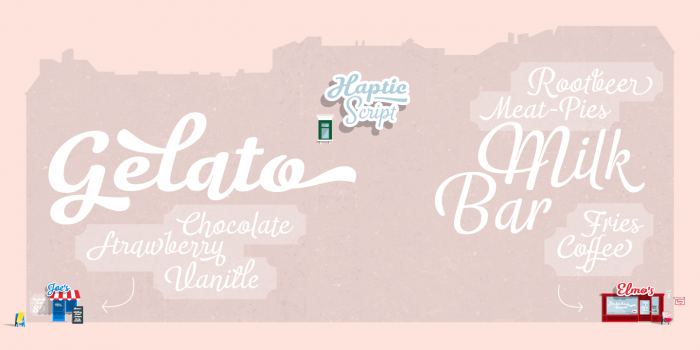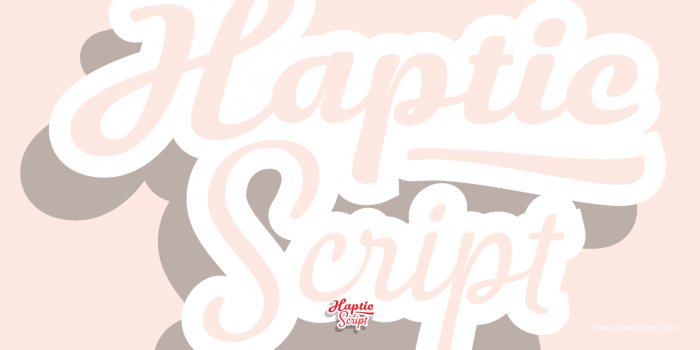
Neue Schriftfamilie: HapticScript
Neue Schriftfamilie: HapticScript von Henning Skibbe
The HapticScript family is a connected brush script with a warm, personal and soft character. The typeface family has five styles from Light through Black. It was designed as a companion and extension to the Haptic sans-serif family.
HapticScript has up to 14 variations for each glyph. The almost 2,000 characters per font including 40+ ligatures enable designers to give each word an individual look. Many swash characters for initials and word endings make words looks as if they were hand lettered.
Five Styles: Light, Regular, Semibold, Bold and Black
OpenType features: Ligatures, Contextual Alternates, Stylistic Sets, Old Style figures, Tabular figures